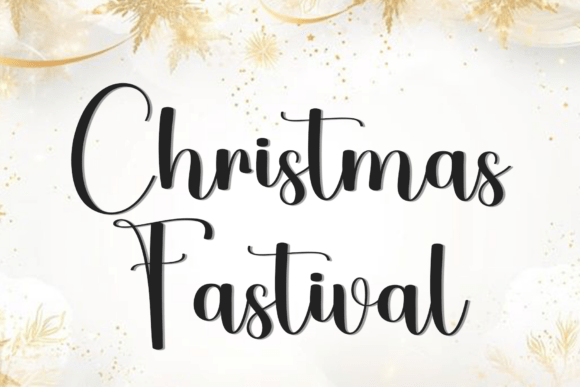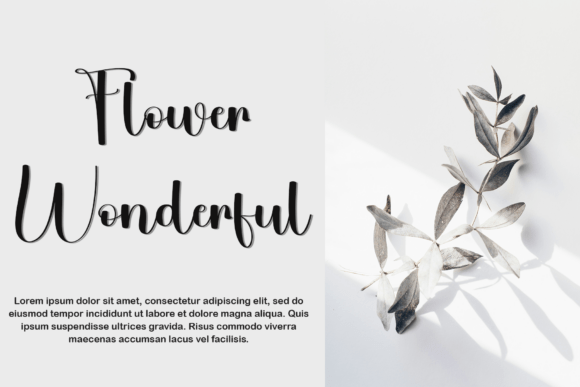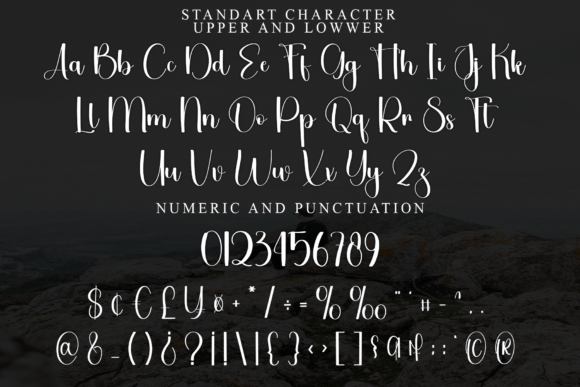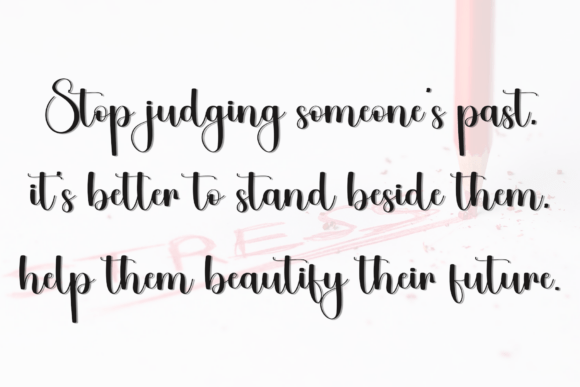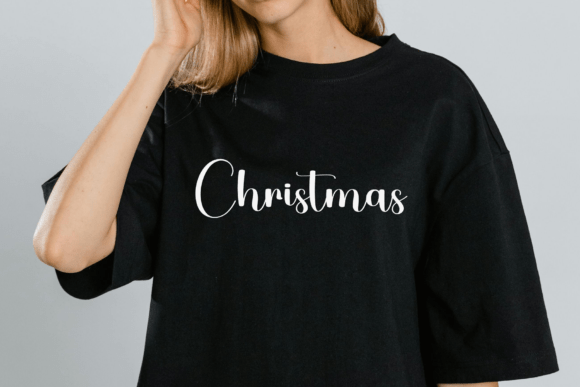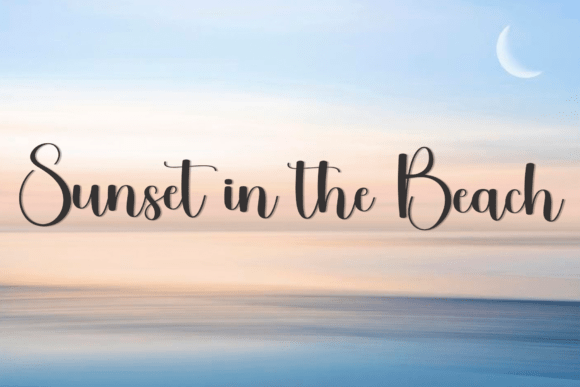
Introducing Birthday Santa Font: The Perfect Addition to Your Design Projects
Are you a designer, crafter, or creative looking for a unique and eye-catching font to elevate your work? Look no further than the Birthday Santa Font, a beautiful and versatile font designed with a soft, distinctive touch. In this article, we’ll explore the features and benefits of this stunning font, and how it can enhance your designs across various artistic and creative fields.
A Unique and Special Font
Birthday Santa Font is a one-of-a-kind font that boasts a soft, unique touch that’s sure to capture the attention of your audience. Its distinctive strokes give it a special character, making it meaningful and versatile for future use. Whether you’re working on a design project, craft, or other creative work, this font is perfect for adding a touch of personality and flair.
Variety of Characters at Your Fingertips
One of the standout features of Birthday Santa Font is its wide range of characters. With a variety of letters, numbers, and symbols to choose from, you’ll have everything you need to create stunning designs that showcase your creativity. From festive holiday projects to everyday crafts, this font has got you covered.
Birthday Santa Font is ideal for a wide range of design projects and crafts, including:
- DIY crafts and decorations
Its versatility and unique style make it perfect for adding a personal touch to your work, and its compatibility with various applications ensures seamless integration into your design workflow.
Natural Font Style for a Wide Range of Products
The natural font style of Birthday Santa Font makes it perfect for a wide range of products, from digital designs to physical crafts. Its soft, unique touch gives it a organic feel that’s perfect for:
- Stationery and paper crafts
- Fabric and textile designs
- Signs and displays
- Packaging and labels
Whether you’re creating digital designs or physical products, Birthday Santa Font is the perfect choice for adding a touch of personality and style.
Enhance Your Designs with Birthday Santa Font
With Birthday Santa Font, you can elevate your designs and take them to the next level. Its unique style and versatility make it perfect for a wide range of artistic and creative fields, including:
- Graphic design
- Digital art
- Crafting and DIY
- Handmade products